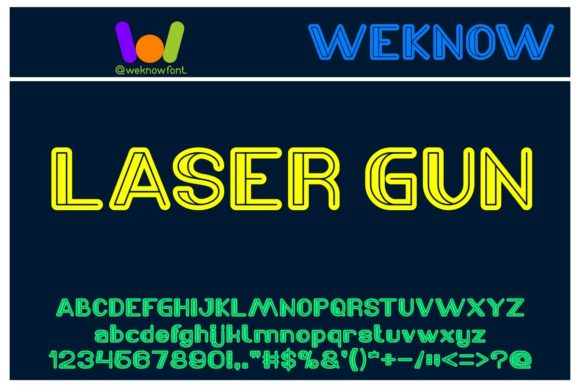
Welcome to the world of Laser Gun, the futuristic display font that will ignite your designs with its electrifying presence. Laser Gun is not just a font; it's a portal to a realm of infinite possibilities. Dive into its captivating characters and let your imagination soar.
Crafted by the visionary designers at weknow, Laser Gun embodies the essence of modern typography. Its sharp angles, sleek curves, and dynamic structure create a visual symphony that demands attention. Imagine the impact it will have on your posters, flyers, and social media graphics.
With Laser Gun, every word you type transforms into a beacon of brilliance, illuminating your message with unmistakable style. Its versatility knows no bounds; whether you're designing for a cutting-edge tech company or a captivating fashion campaign, Laser Gun will elevate your creations to new heights.
Don't settle for ordinary fonts that blend into the background. Embrace the power of Laser Gun and watch your designs ignite with unparalleled brilliance. Its techno-chic aesthetic will captivate your audience, leaving an unforgettable impression that resonates long after they've encountered your words.